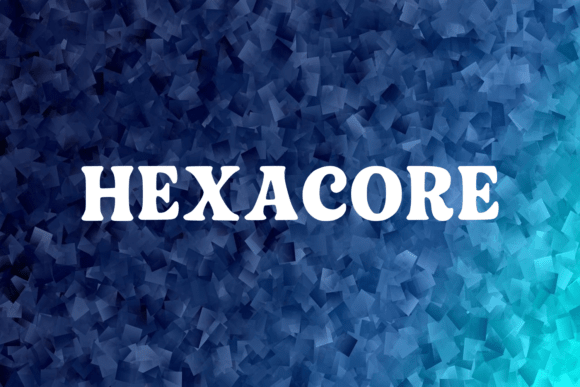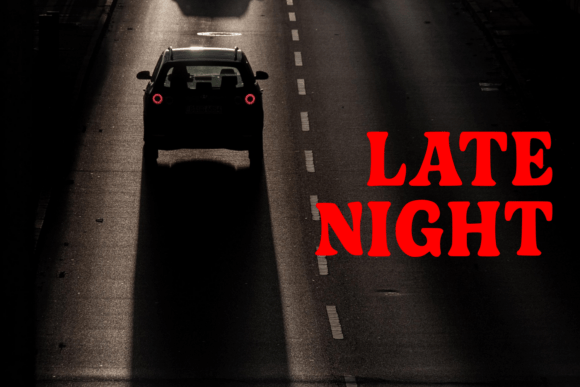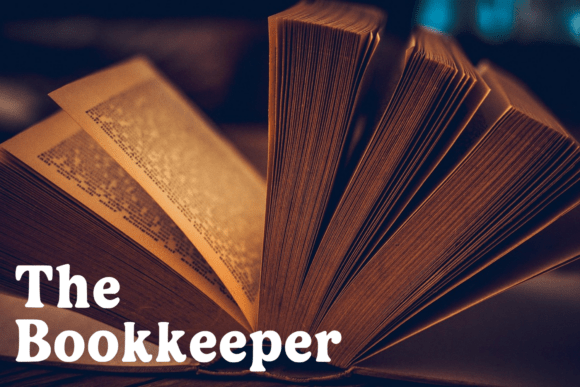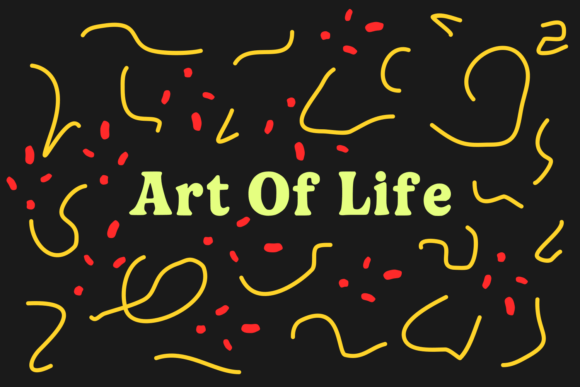
Burgher Font: Elevate Your Designs with a Unique Display Font
About Burgher is an incredibly unique display font. Masterfully designed to become a true favorite, this font has the potential to bring each of your creative ideas to the highest level! If you’re a designer, crafter, or simply someone who loves to dabble in creative projects, you’re likely always on the lookout for the perfect font to make your work stand out. That’s where Burgher Font comes in – a game-changing display font that’s sure to take your designs to new heights.
The Story Behind Burgher Font
Burgher Font is more than just a collection of letters – it’s a carefully crafted art piece designed to add a touch of elegance and sophistication to any project. Its unique design makes it perfect for a wide range of applications, from branding and advertising to packaging and digital media. Whether you’re working on a logo, a poster, or a website, Burgher Font is the perfect choice for anyone looking to add a bit of flair to their design.
What Makes Burgher Font So Special?
So, what sets Burgher Font apart from other display fonts on the market? For starters, its unique design is both modern and timeless, making it perfect for projects that require a bit of edge. The font’s masterful design ensures that it’s easy to read, even at larger sizes, making it perfect for headlines, titles, and other display text. Plus, its versatility means that it can be used in a wide range of contexts, from formal and professional to playful and creative.
Key Features of Burgher Font
- Unique Design: Burgher Font boasts a one-of-a-kind design that’s sure to turn heads.
- High Versatility: Perfect for a wide range of applications, from branding to digital media.
- Easy to Read: Despite its unique design, Burgher Font remains easy to read, even at larger sizes.
- Masterfully Crafted: Every detail has been carefully considered to ensure a premium look and feel.
How to Use Burgher Font in Your Designs
- Pair it with a Simple Font: For maximum impact, pair Burgher Font with a simple, easy-to-read font for body text.
- Experiment with Sizes: Don’t be afraid to experiment with different sizes to find the perfect balance for your design.
- Add a Pop of Color: Use Burgher Font to add a pop of color and create visual interest in your design.
Who Can Benefit from Burgher Font?
Burgher Font is perfect for anyone who loves to create, including:
- Graphic Designers: Take your branding and advertising projects to the next level with Burgher Font.
- Crafters: Add a touch of elegance to your handmade projects, from cards to home decor.
- Web Designers: Use Burgher Font to create stunning website headers and titles.
In conclusion, Burgher Font is an incredibly unique display font that’s sure to become a true favorite among designers and crafters. Its masterful design, versatility, and ease of use make it perfect for a wide range of applications. Whether you’re looking to add a touch of elegance to your designs or simply want to take your creative projects to the next level, Burgher Font is the perfect choice. So why wait? Give Burgher Font a try today and see the difference it can make in your work!